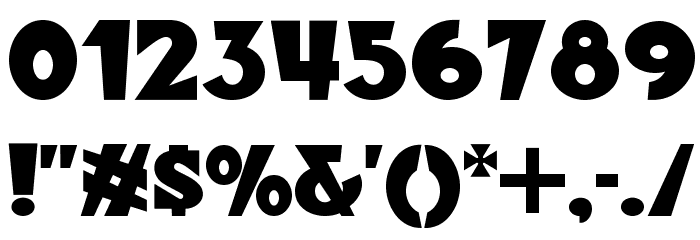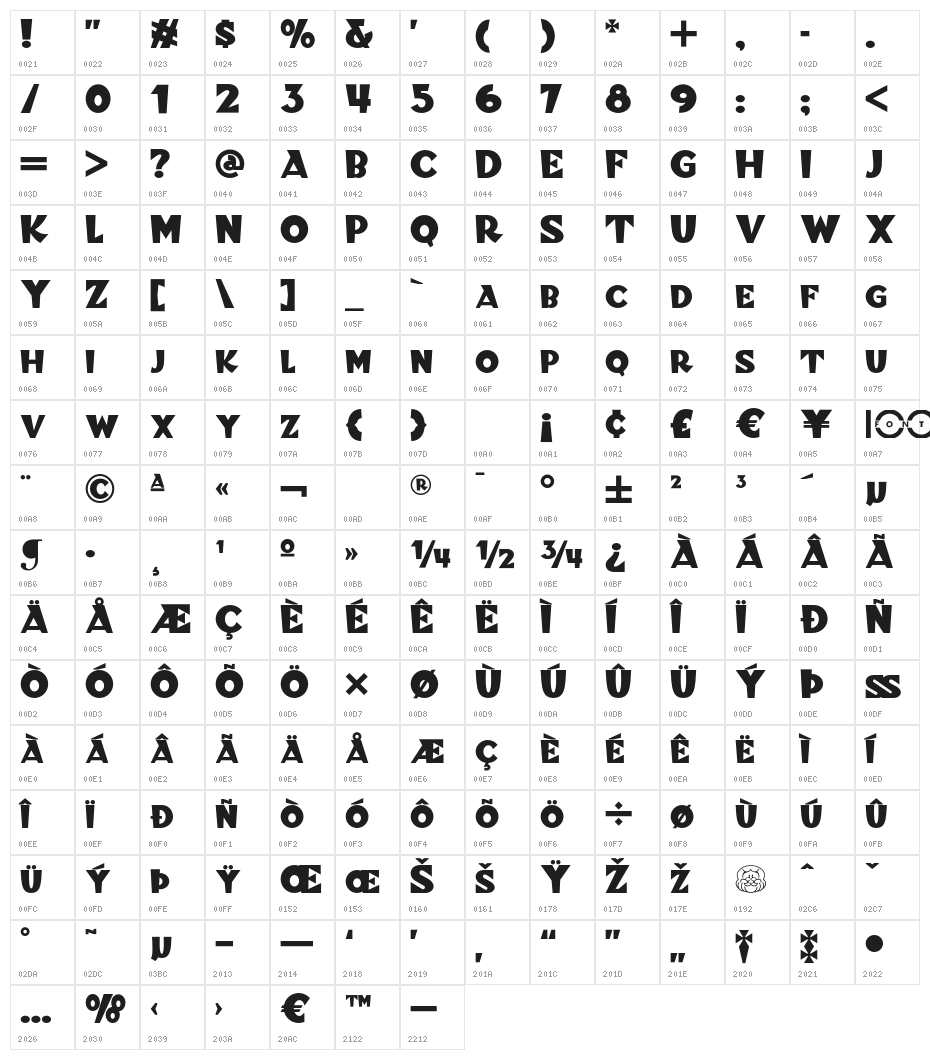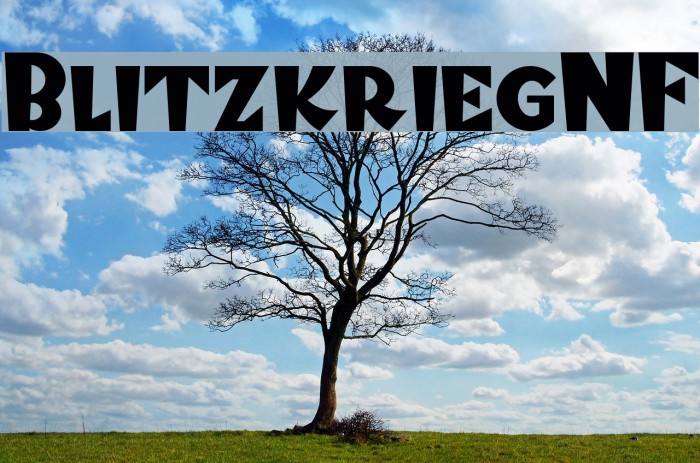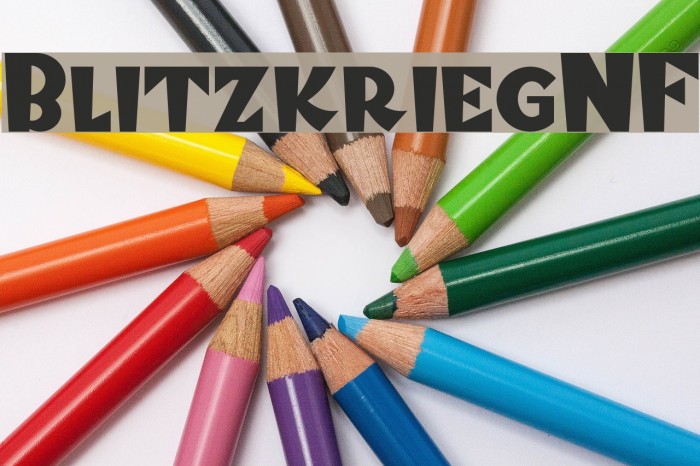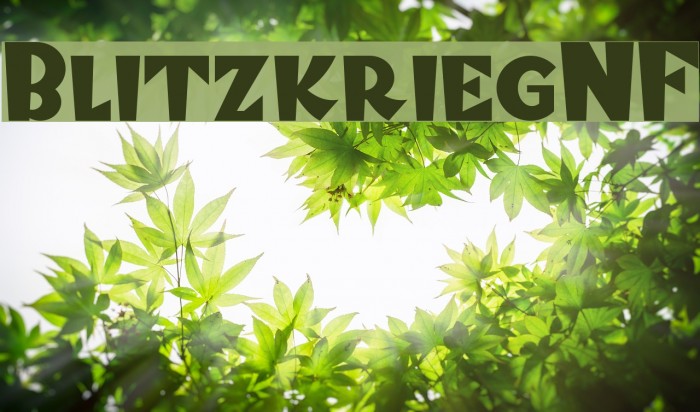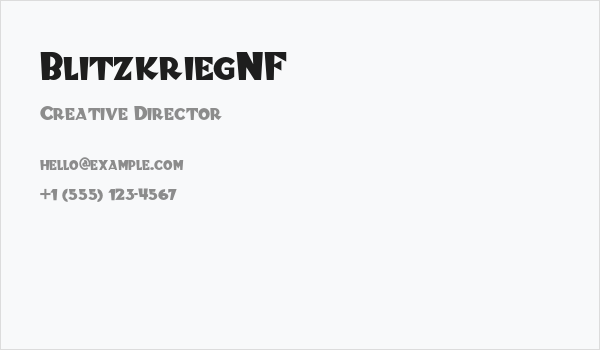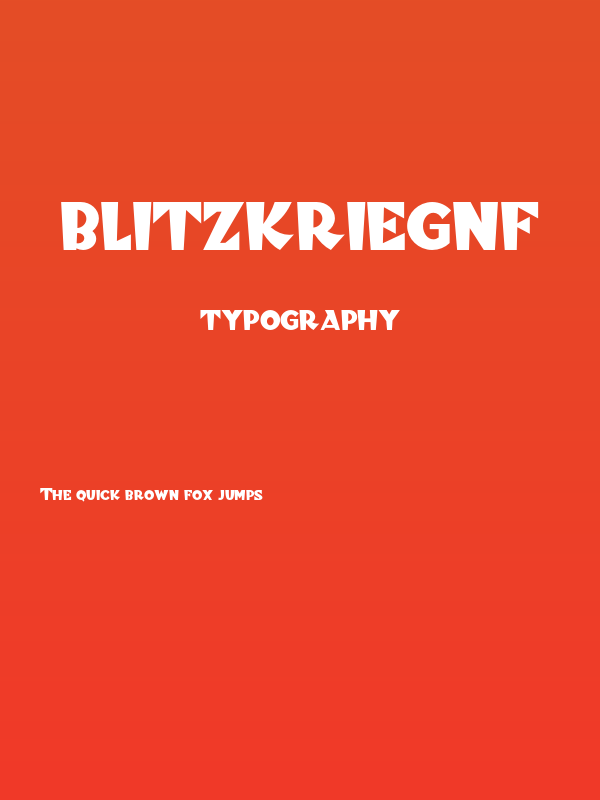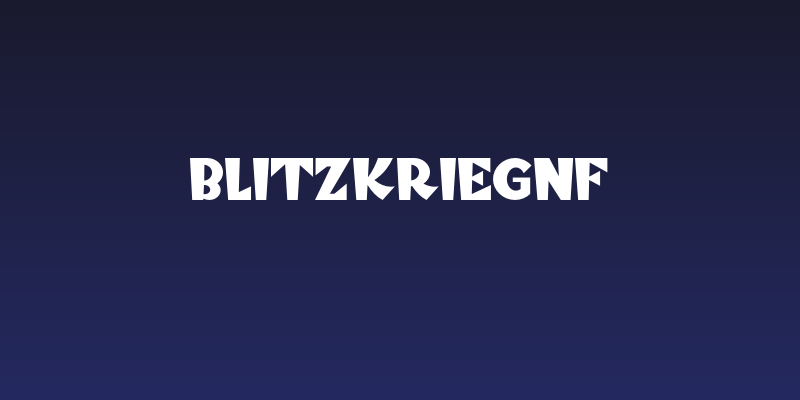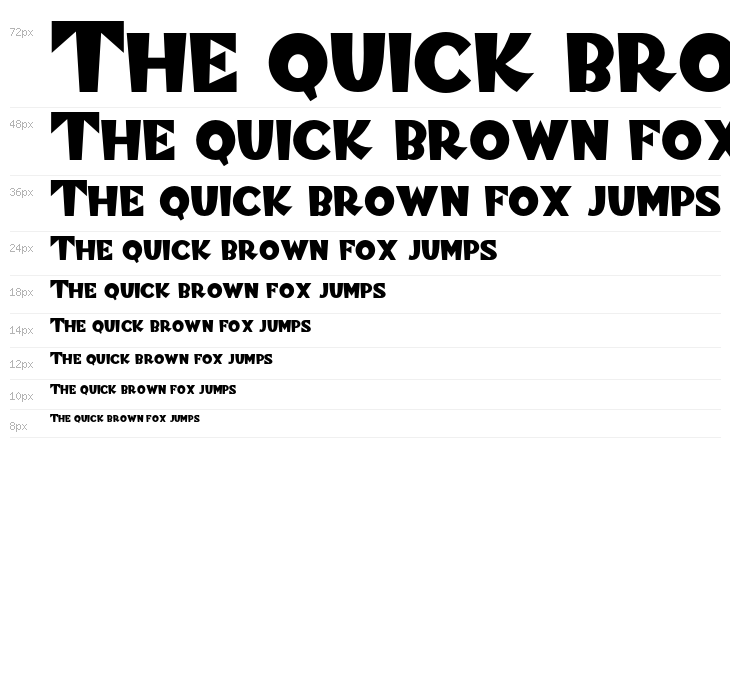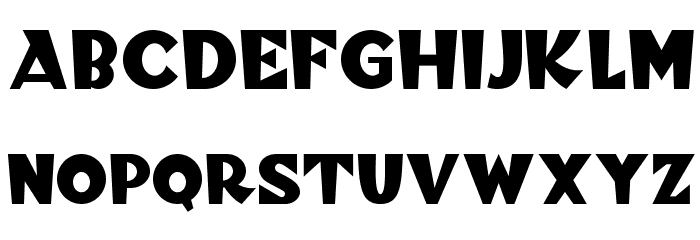
BlitzkriegNF Font
BlitzkriegNF Description
This font features a bold and dynamic style with sharp, angular edges and a strong presence. The characters are designed with a unique flair, incorporating geometric shapes and unexpected cuts that create a sense of movement and energy. The uppercase and lowercase letters maintain a consistent weight, contributing to a cohesive look. The numerals are equally bold, with a slightly condensed appearance that complements the overall design. Special characters are crafted with the same attention to detail, ensuring they blend seamlessly with the rest of the font. This typeface is ideal for projects that require a striking and memorable visual impact.
| Proposed Projects | Ideal for posters, logos, video game graphics, and branding materials that require a bold statement. |